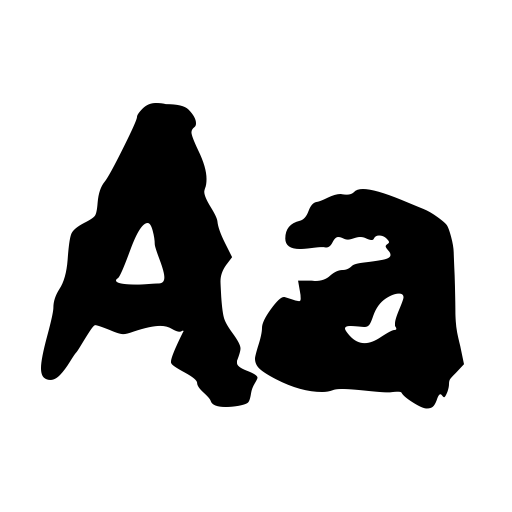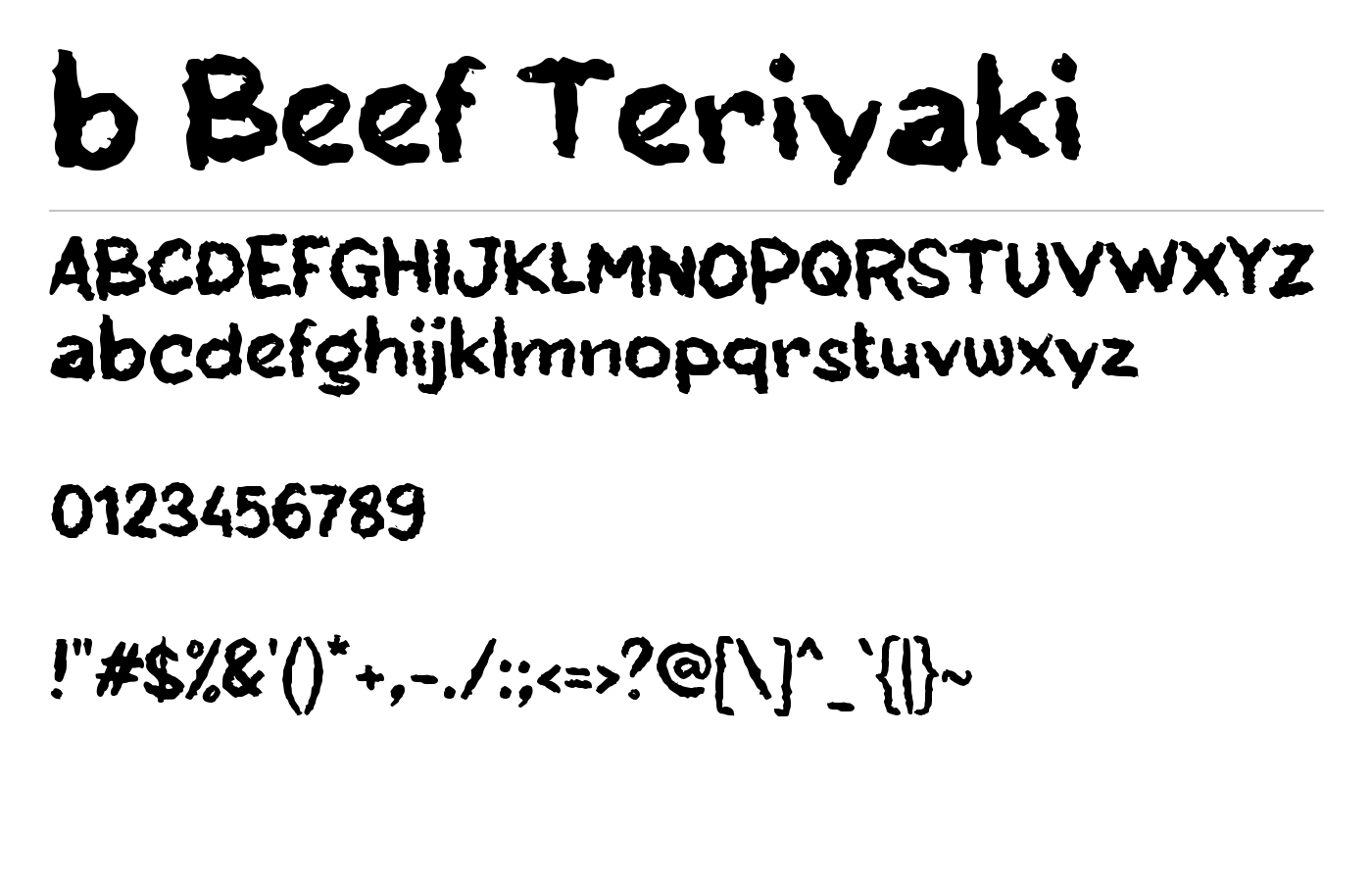
Beef Teriyaki is a bold, textured handwritten font with a playful and informal vibe. Its irregular edges and rough strokes give it a casual, organic feel, making it perfect for designs that want to convey creativity and approachability. This font works well for branding, packaging, posters, and any project seeking a fun, energetic touch.
b Beef Teriyaki Font